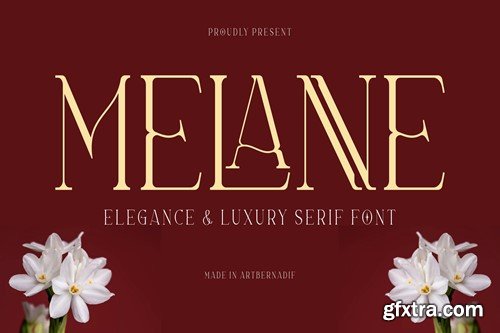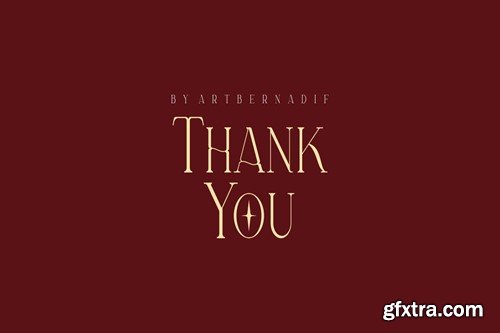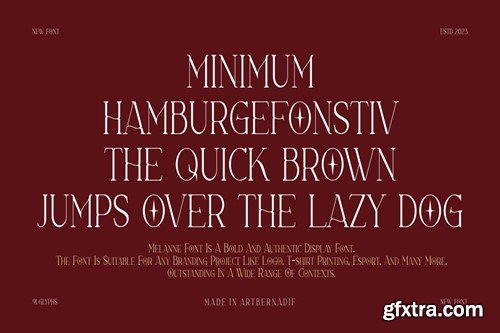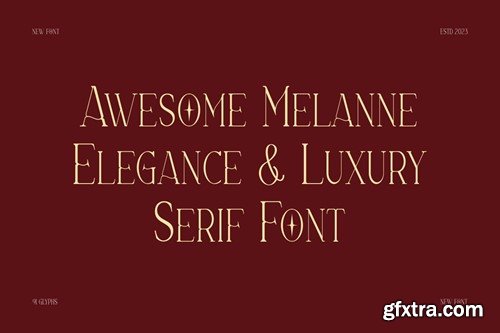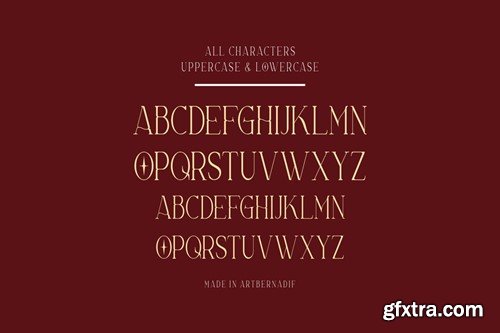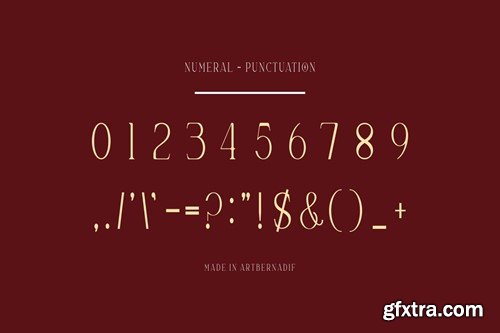
梅兰妮 - 绮丽与奢华衬线字体 FWC6C3B
Melanne - Elegance & Luxury Serif Font FWC6C3B
Melanne - Elegance & Luxury Serif Font
Introducing our new product Melanne Font Elegance & Luxury Serif Font
Melanne Font Modern Font is a bold and authentic display font. The font is suitable for any branding project like logo, t-shirt printing, esport, and many more. outstanding in a wide range of contexts.